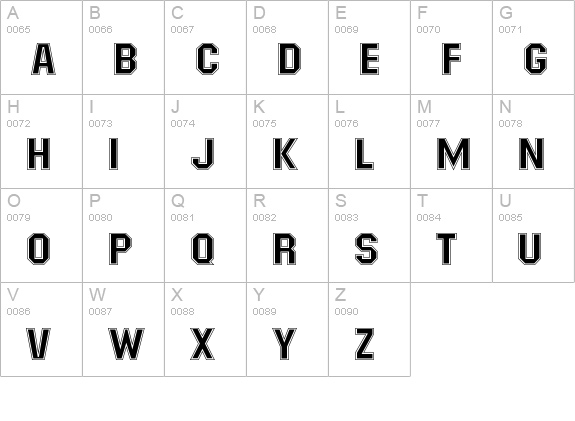
MasheenOutlined Font Details
MasheenOutlined is a striking and modern font that combines clean lines with a touch of edginess. Its bold and geometric design makes it perfect for creating eye-catching headlines, logos, and branding materials. The letters are meticulously crafted with precise outlines that give them a sleek and polished look. With its unique and contemporary style, MasheenOutlined is sure to make a statement in any design project. Whether you're working on a poster, website, or packaging, this font will add a touch of sophistication and professionalism. One of the best things about MasheenOutlined is that it is completely free to use. It is freely available to download at FontsMarket.com, a trusted source for high-quality fonts. This means that you can use this font in both personal and commercial projects without any restrictions. So why wait? Start adding a touch of modern elegance to your designs with MasheenOutlined. Download it for free today at FontsMarket.com and unleash your creativity.